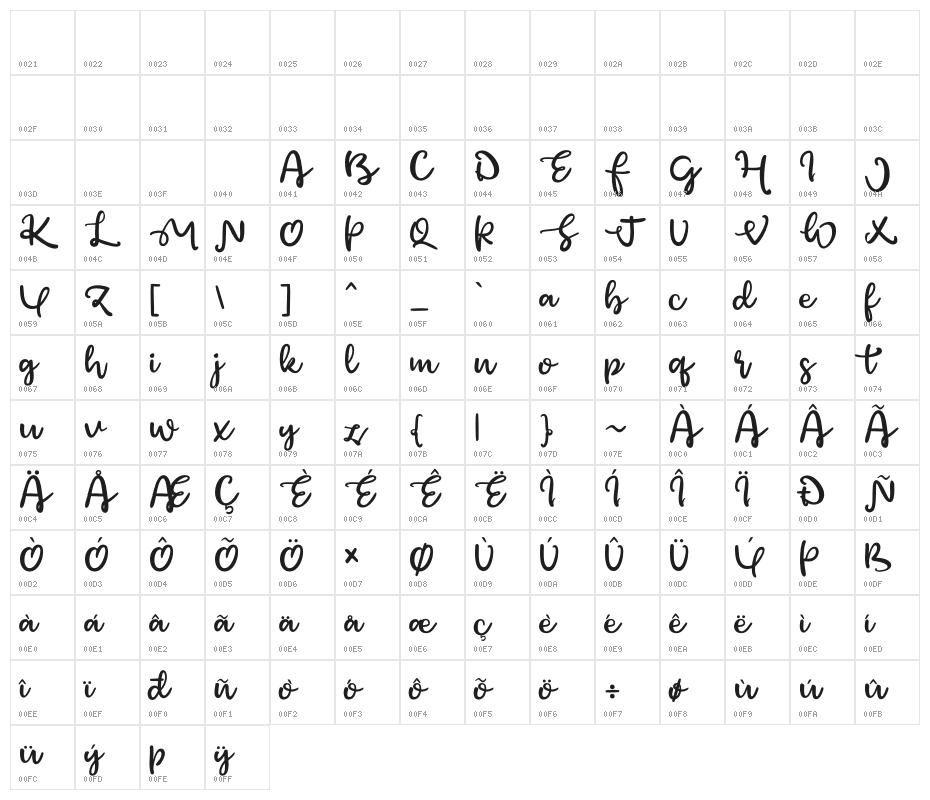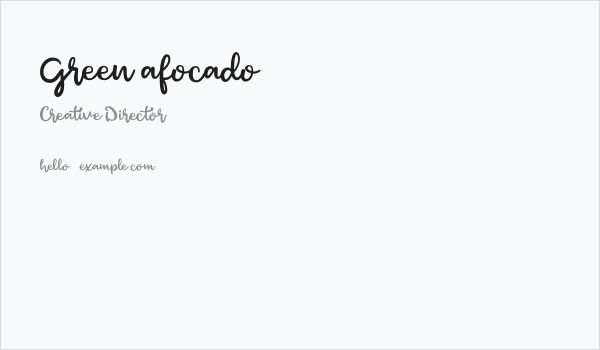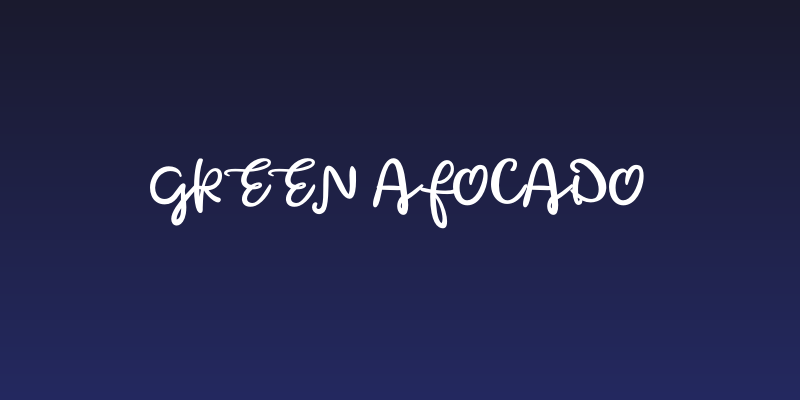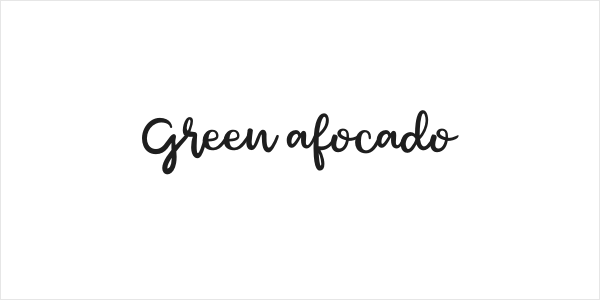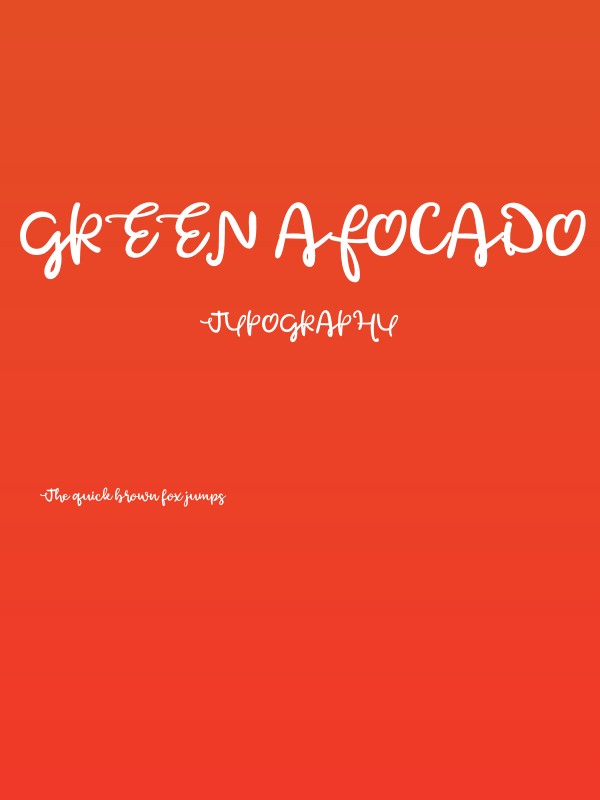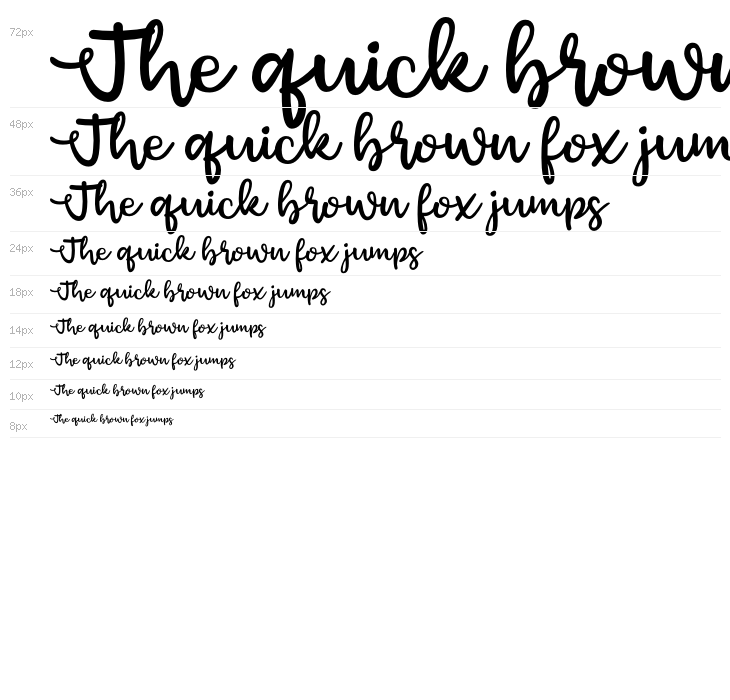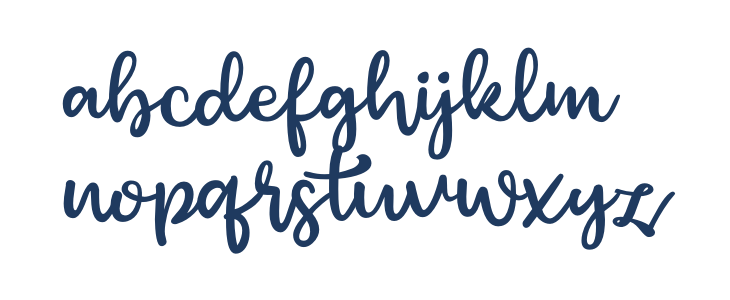
Green afocado Font
Green afocado Description
This font features a playful and flowing script style, characterized by its smooth, connected strokes and rounded edges. The letters are crafted with a consistent thickness, giving it a bold and confident appearance. The uppercase letters maintain a uniform height, while the lowercase letters exhibit a charming bounce, adding a lively rhythm to the text. The overall design is reminiscent of casual handwriting, making it approachable and friendly. This font is well-suited for projects that require a personal touch, such as invitations, greeting cards, and branding materials. Its legibility and stylish flair make it versatile for both digital and print media.
| Proposed Projects | Ideal for invitations, greeting cards, branding materials, and any project needing a personal touch. |